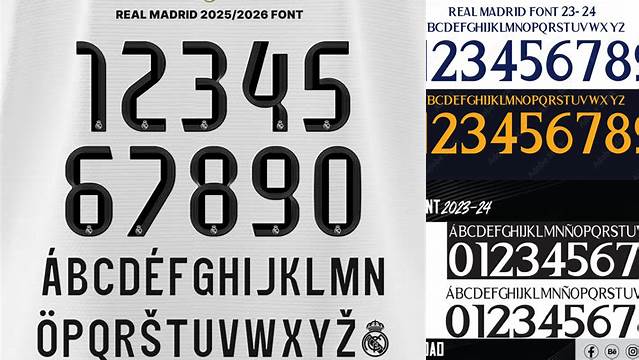
What is the Real Madrid Font 2026/19? Exploring the Typography of Champions
Alright, let's kick things off with the basics. The Real Madrid font 2026/19 isn't just any typeface; it's a carefully crafted design that embodies the spirit, history, and success of the club. This specific font style is what you see on the jerseys of the players, the official club merchandise, and the branding materials. It is more than just a set of letters and numbers; it's a visual representation of the team's identity. Think of it as the signature of Real Madrid, instantly recognizable by fans worldwide. The font often features a bold, modern design with clean lines, reflecting the team's commitment to excellence both on and off the pitch. The 2019/2026 font is an evolution of the previous versions. The font style might vary slightly from season to keep things fresh and aligned with modern design trends. What makes the Real Madrid font special? The font is carefully chosen and designed to be legible, and visually appealing in various contexts. The goal is for the fonts to work seamlessly, regardless of their use. From social media graphics to website headers to custom fan art, it is all about ensuring brand consistency and recognition. The Real Madrid font is more than just a design element; it's a powerful tool for connecting with fans and communicating the club's values. When using the Real Madrid font, remember that you're not just using any font. You are connecting with a legacy of triumph, passion, and dedication. This is why this font is a great asset when designing anything related to Real Madrid. The font can also include numbers and special characters. This allows for a more complete design experience, ensuring that your designs are as impactful as the club itself.
Remember, the font choice reflects the club’s rich history and its commitment to both tradition and innovation. The Real Madrid font is a powerful tool that lets you connect with a community of fans and celebrate the team's successes.
How to Use the Real Madrid Font 2026/19 in Your Designs
Take the time to explore different design possibilities, and do not be afraid to experiment with different colors, sizes, and layouts. You can create stunning graphics that will surely impress your fellow Real Madrid fans. It is all about creating something that is impactful. The best designs are usually the ones that come from a place of creativity and passion.
Real Madrid Font 2026/19: Best Practices and Design Tips
Let's delve into some best practices and design tips to help you get the most out of your Real Madrid font 2026/19. Use the font in moderation, and avoid overuse. A little goes a long way. Instead of using the Real Madrid font for every element of your design, consider using it for headlines, logos, or key text elements. This will help create a balanced and visually appealing design. Choose the right colors. When creating designs, make sure the colors you choose complement the Real Madrid font. Use the club's official colors (white, navy blue, gold) as your primary colors. Create a color scheme that is visually pleasing and aligns with the club's brand identity. Experiment with different sizes and styles. The Real Madrid font looks great in a variety of sizes and styles. Try experimenting with bold, italic, and different sizes to create a visual hierarchy. This is a design technique that can help draw attention to important information. The font has many uses. Consider using the font for a variety of projects. Some ideas include creating social media graphics, designing posters, or creating custom merchandise. The font can also be used in website headers, fan art, and personalized gifts. When designing something, try to ensure that you respect the club's branding guidelines and intellectual property rights. Do not modify the font in any way that could be seen as damaging to the club's reputation. It is also important to check the licensing terms for the font to ensure you are using it legally. The Real Madrid font can be a powerful design tool, but it should be used responsibly and ethically. Using this font, you can create visually stunning graphics that capture the essence of the Real Madrid brand.
Conclusion: Unleash Your Creativity with the Real Madrid Font!